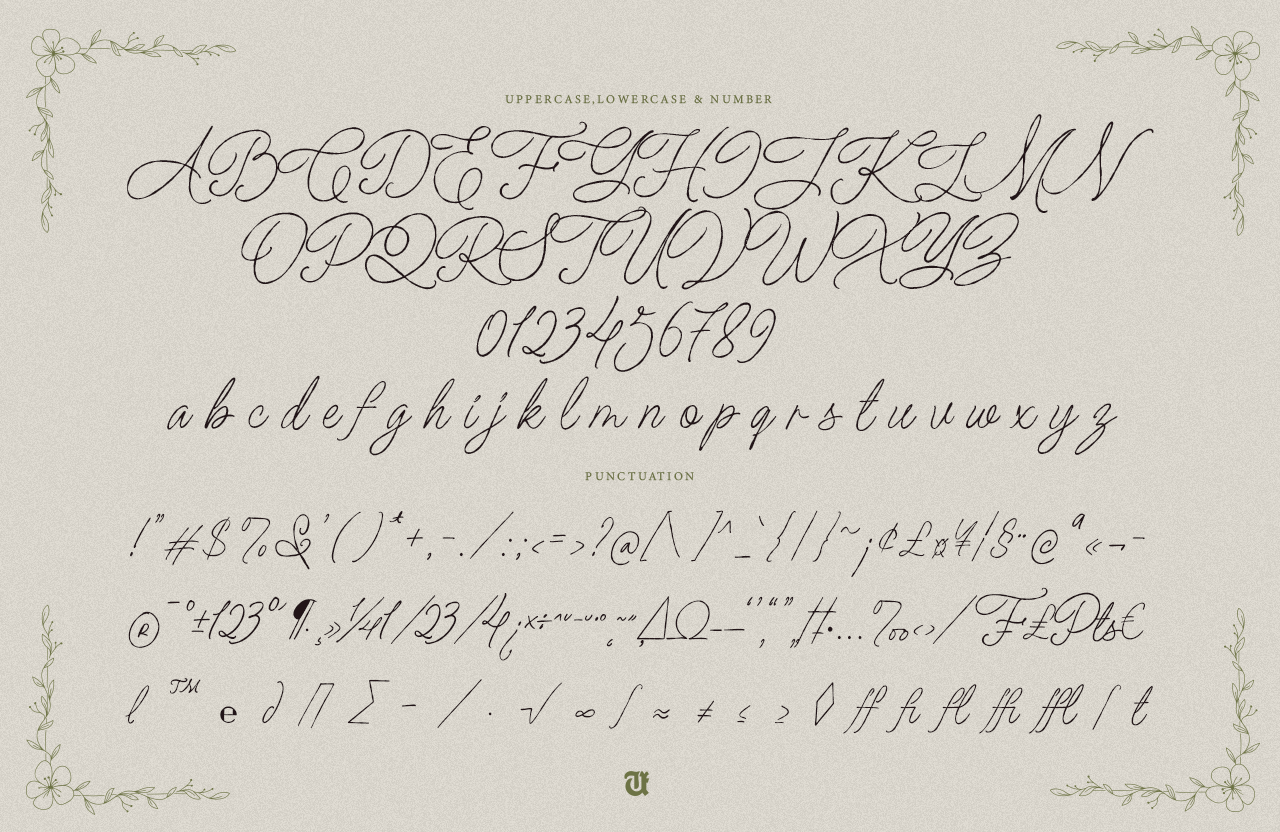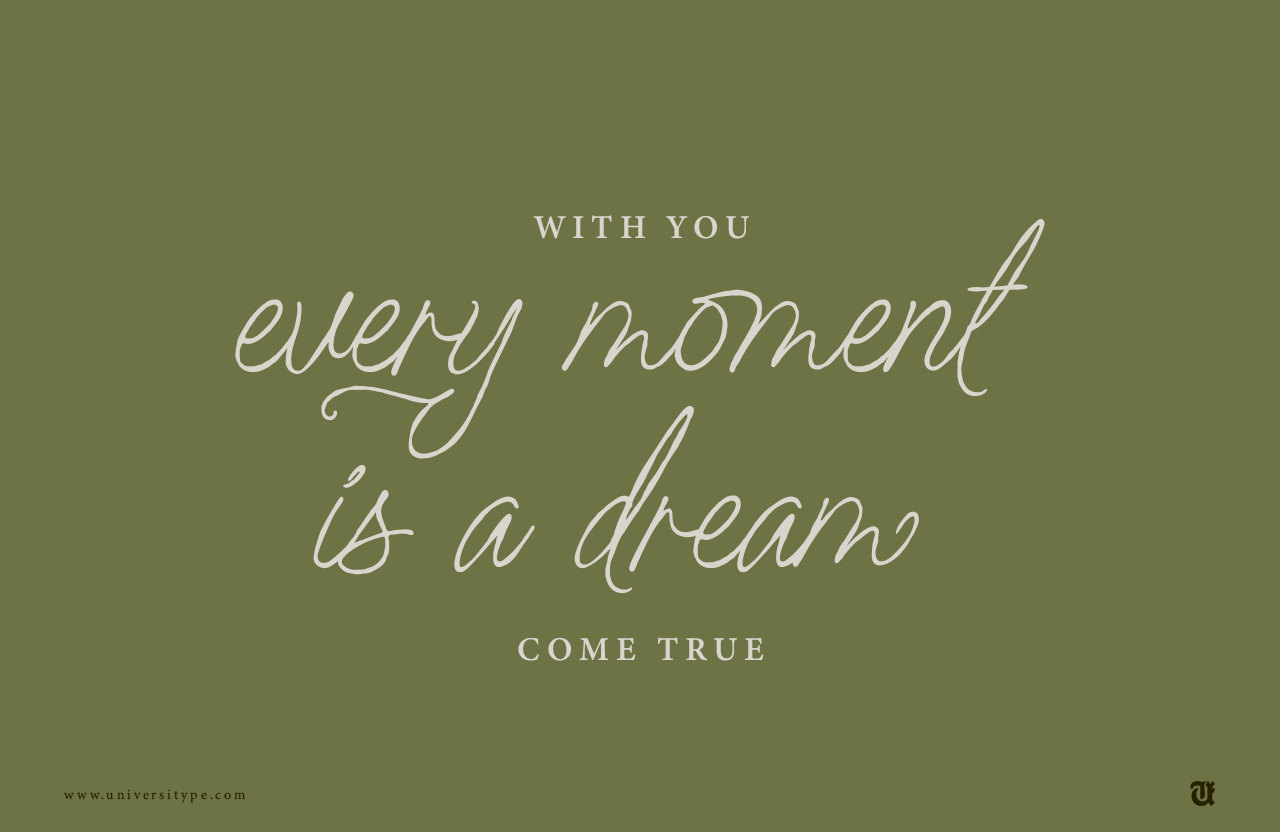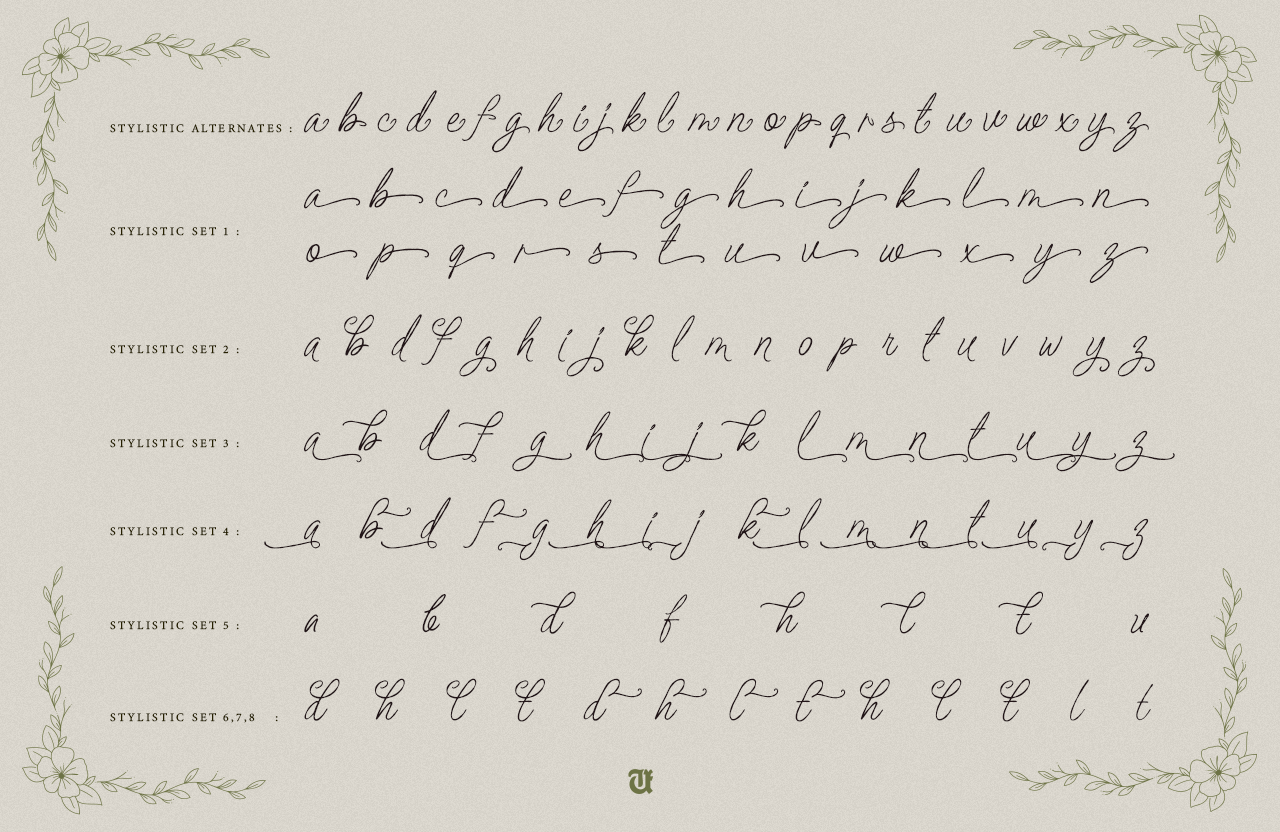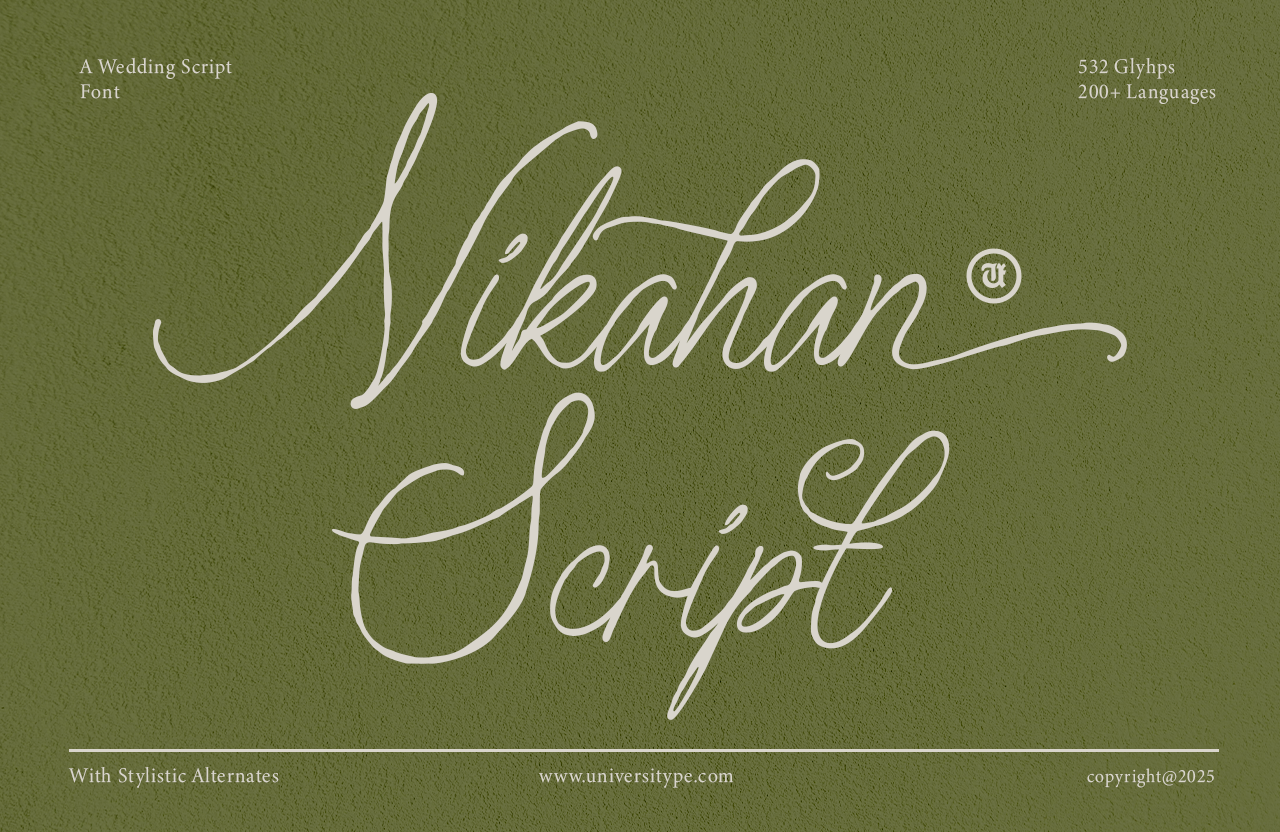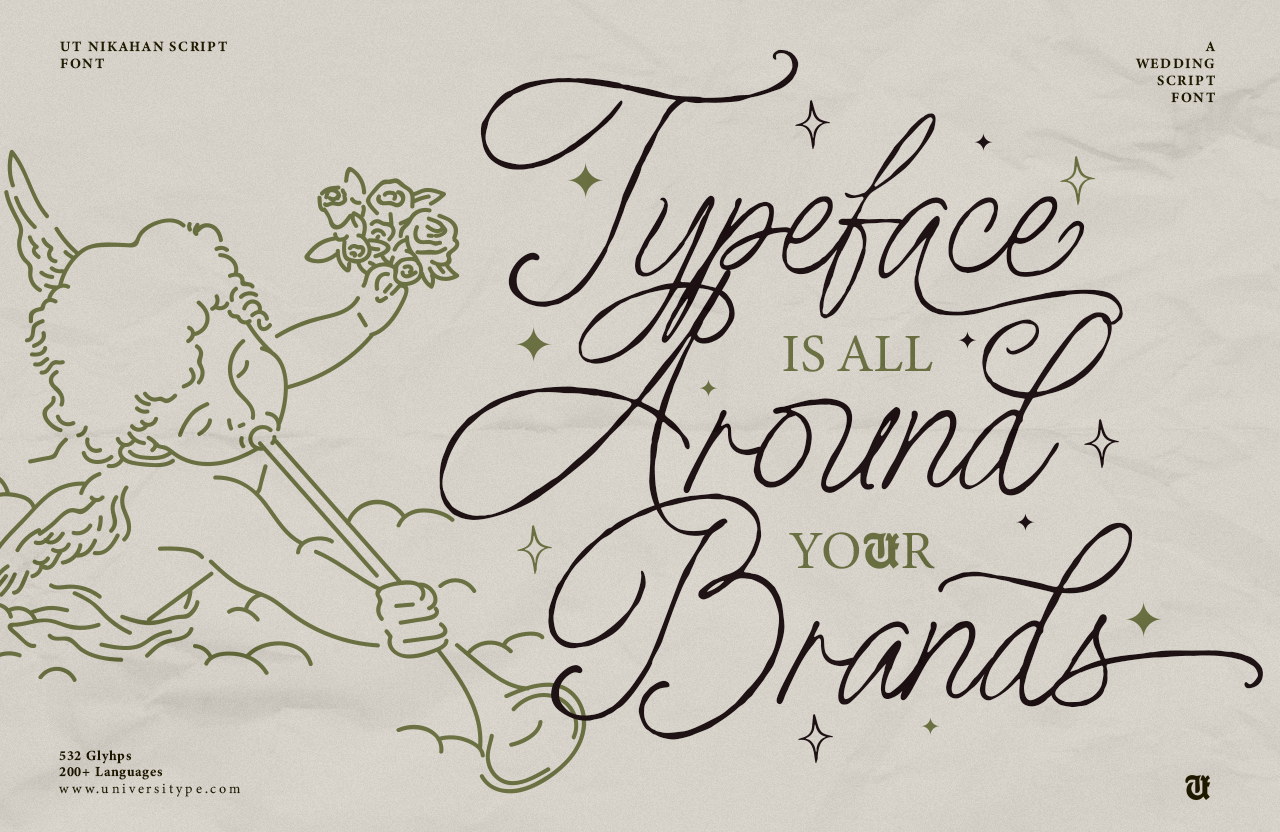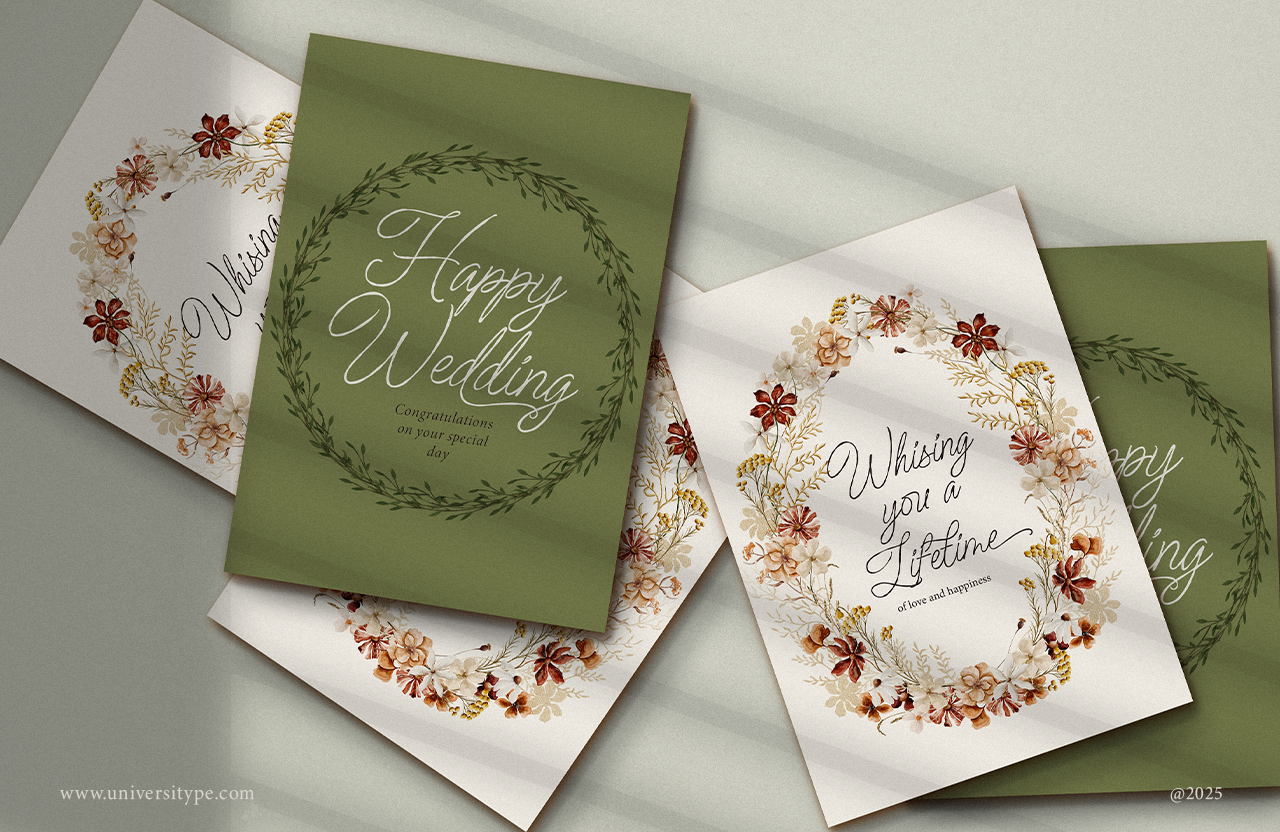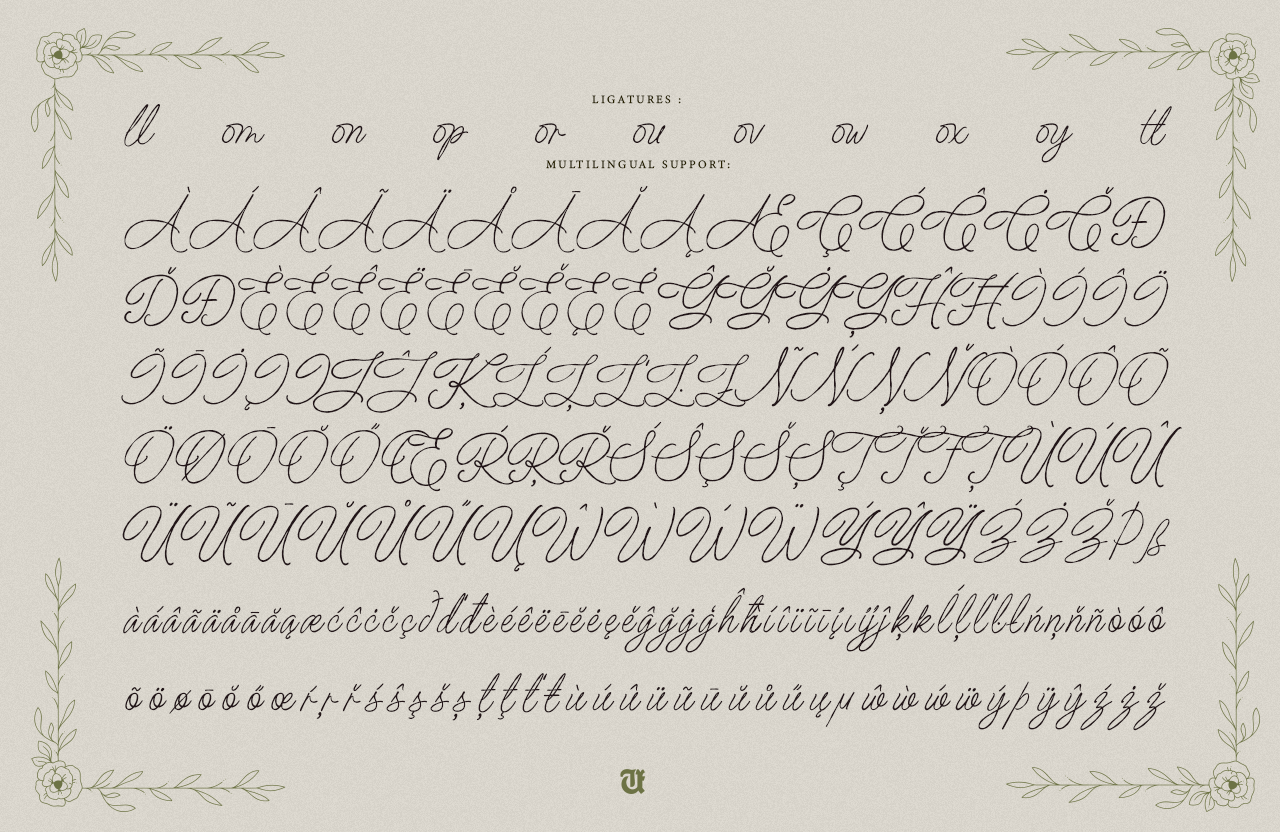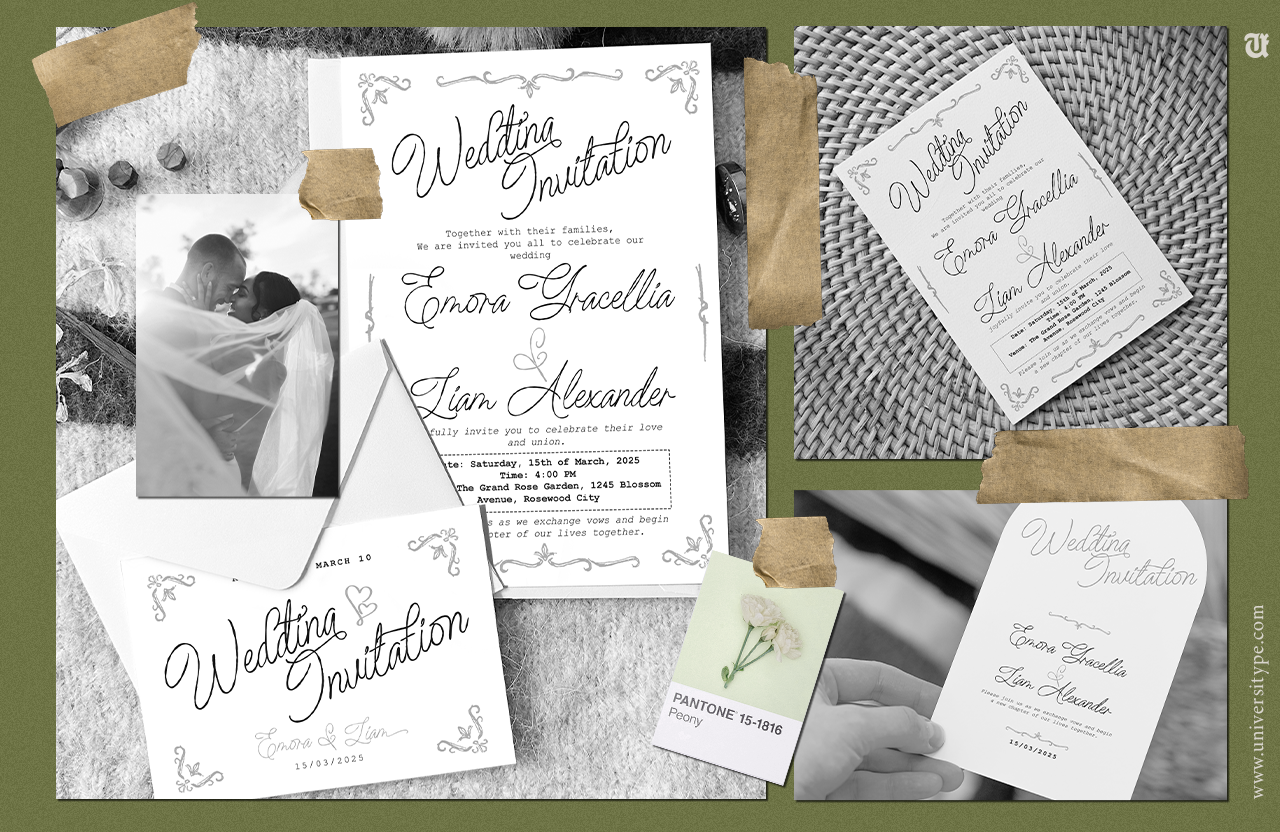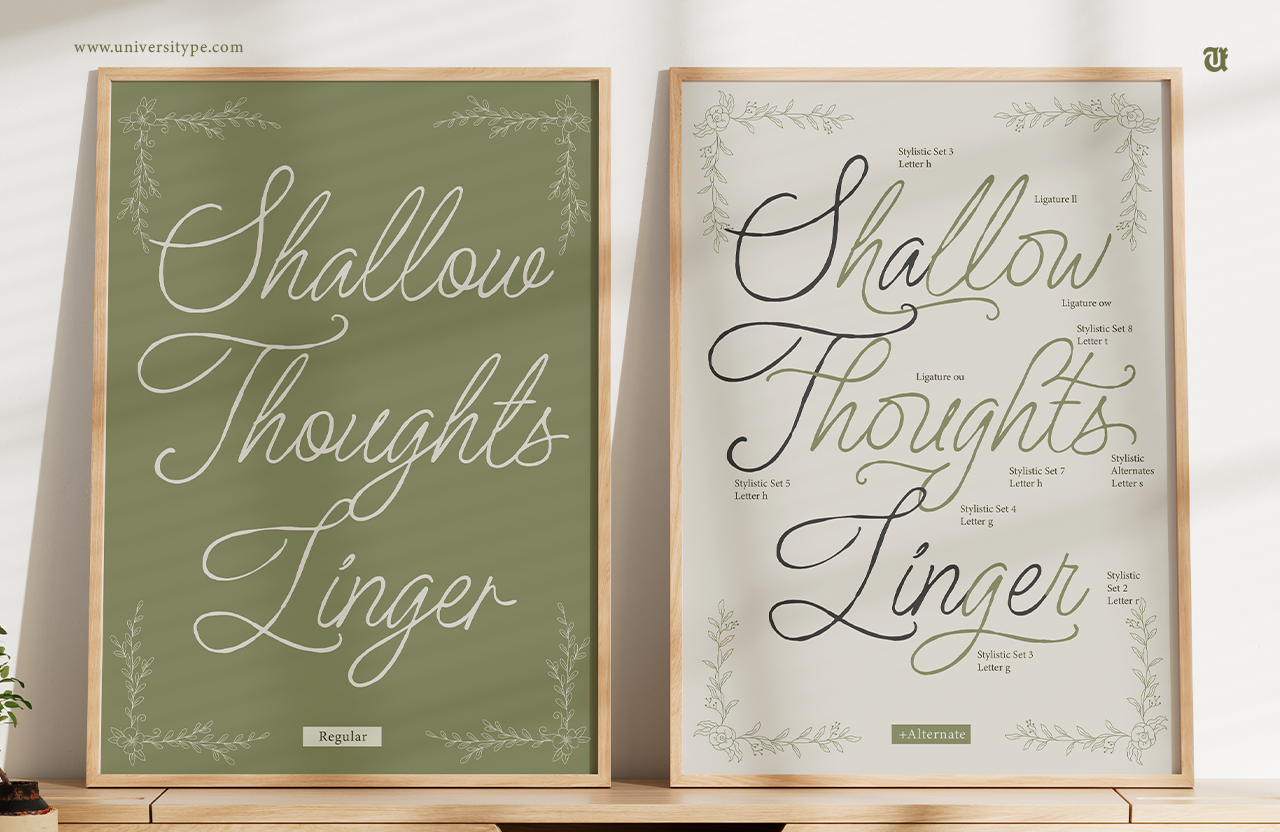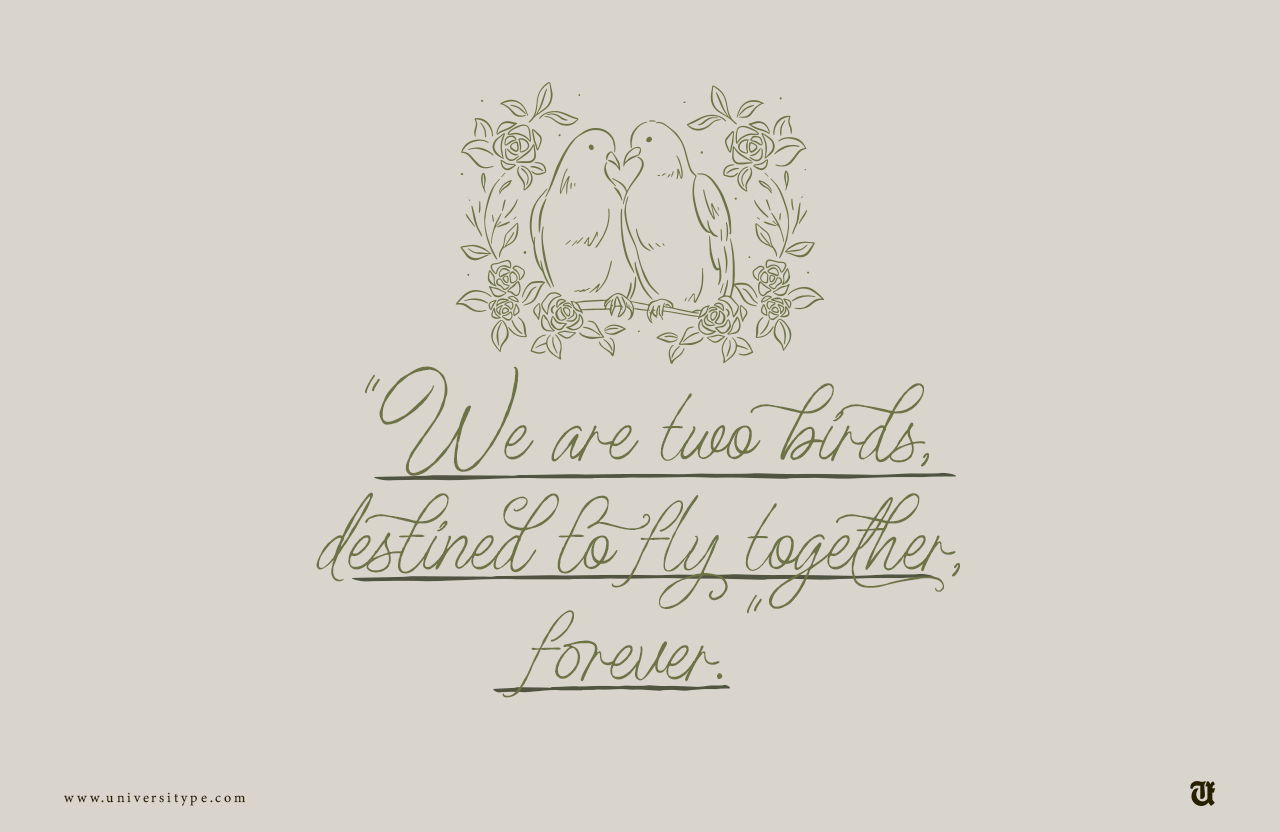
UT Nikahan Script - A Wedding Font
UT Nikahan Script Font
UT Nikahan Script, a beautiful wedding font with all the elegance of calligraphy. The flowing lines and fancy details make it perfect for creating romantic wedding invitations and stationery that will really wow your guests.
Target Audience:
This font is great for wedding planners, designers, and couples who want to add a bit of extra elegance and personal touch to their wedding stuff like invitations, save-the-dates, programs, and other wedding papers.
Key Features:
Stylistic Alternates: There are different styles for each letter so you can mix and match to create a look that’s perfectly you.
Multilingual Support: It works in over 200 languages, so it’s super versatile no matter where you’re getting married.
Extended Glyph Set: With 532 glyphs, you’ve got tons of characters and symbols to play with.
Ligatures: Some letters automatically connect in a fancy way, making the text look more natural and flowing.
Inspiration Behind UT Nikahan Script:
The font was inspired by traditional calligraphy and handwriting, capturing that special love and commitment feeling that’s at the heart of weddings. It’s a nice mix of classic elegance and modern simplicity, so it works for both traditional and contemporary wedding styles.
Usage Suggestions:
- Wedding Invitations: Make invitations that really stand out and make a romantic impression on your guests.
- Save-the-Date Cards: Use it for your save-the-dates to announce your special day in style.
- Wedding Programs: Design programs that match your wedding theme perfectly.
- Personalized Stationery: Create thank-you notes, menus, and other wedding stationery that shows off your personal style.
Technical Details:
- Features: Includes Stylistic Alternates, Ligatures, and works with multiple languages
- Glyphs: 532 total glyphs to choose from
- Languages Supported: Works with over 200 languages
UT Nikahan Script offers the perfect blend of elegance and personalization to make your special day truly unforgettable. Whether you’re a professional designer or a couple planning your wedding, this font will help you create beautiful, memorable pieces for your big day.